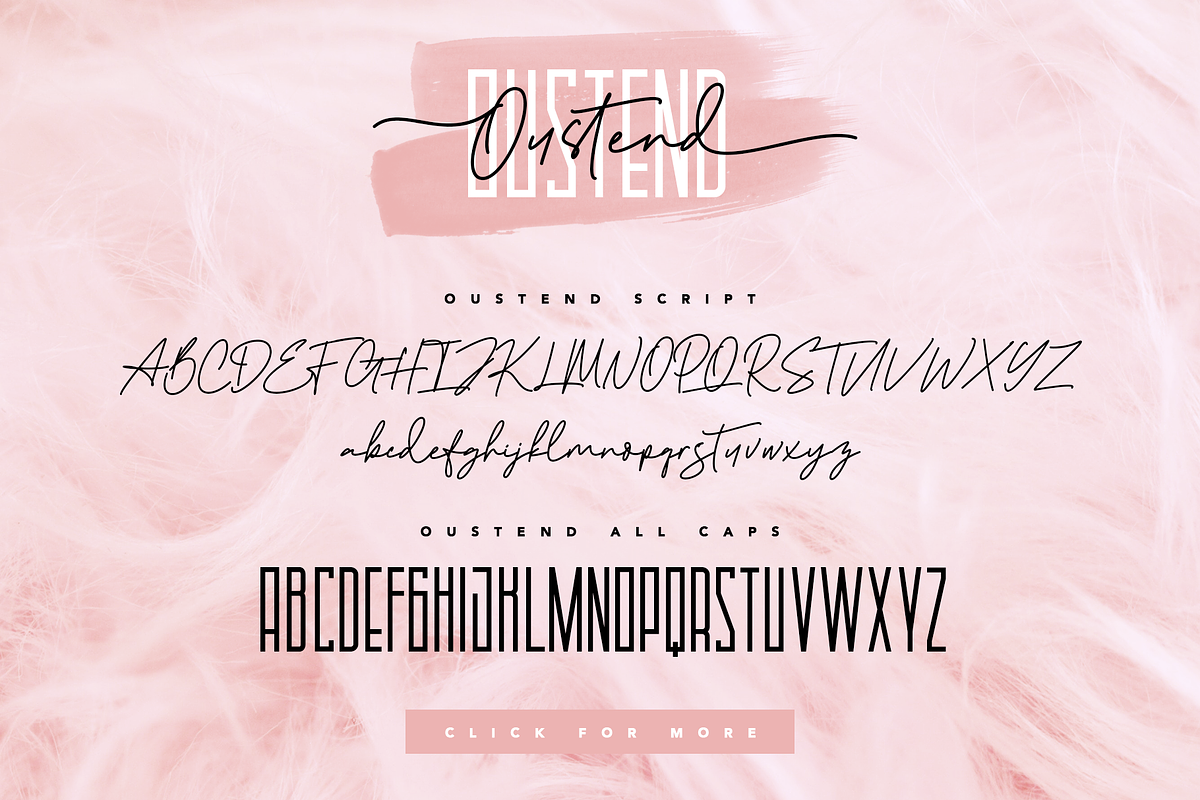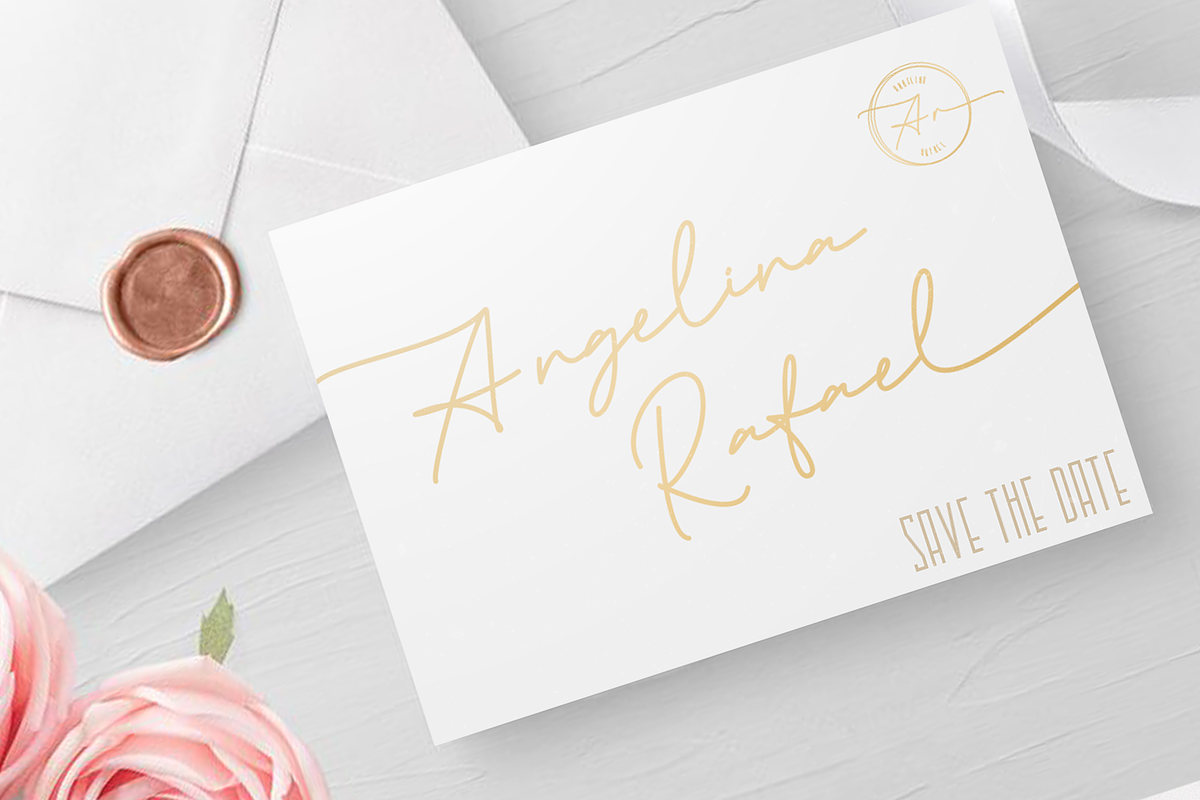
Oustend - Signature Style
Introducing Oustend font is a font duo with elegan script font and strong sans font this font gives a natural & stylish flow with classy feminine touch in your project. This collection of scripts is this works well for many applications. Everything for any design project such as logos & branding, invitation, stationery, wedding designs, social media posts, advertisements, product packaging, product designs, label, photography, watermark, special events or anything that need that authentic handwriting taste and you could benefit from this collection of signature fonts.
The Script: This font have a feminine signature style with 16 ligature and swashes in all letter
The Sans: The sans is the all caps and this font have stronger style and this font very suitable for script font combination
- New Look Script font
- New sets Uppercase and Lowercase swashes
- Stylistic Sets / Swash
- The ton of glyphs (include Uppercase, Lowercase, Numerals & Punctuations)